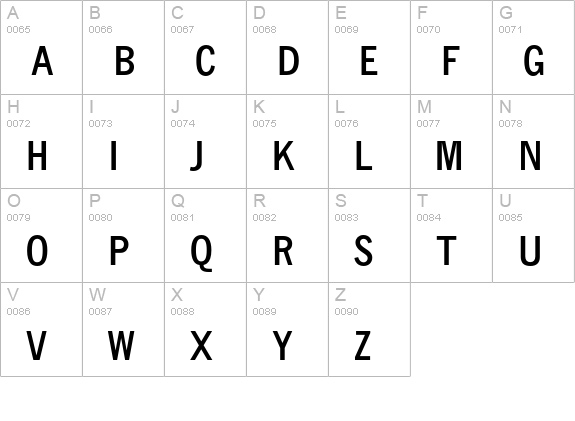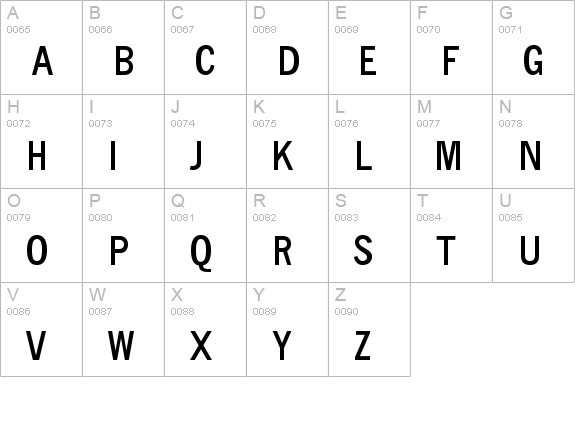
News Gothic Bold Condensed is a strong, high-contrast, condensed-width variant in the News typeface family \xE2\x80\x94 well suited to headlines, attention-grabbing titles, and strong calls-to-action.
News Gothic Bold Condensed is a versatile and modern typeface that exudes strength and boldness. With its clean lines and condensed form, this font is perfect for making a statement in headlines, titles, and other display text. Its bold weight commands attention and its condensed design allows for efficient use of space without sacrificing readability. What sets News Gothic Bold Condensed apart is that it is available for free download at FontsMarket.com. Whether you're working on a print design project, a website, or any other creative endeavor, this font is a valuable addition to your typographic arsenal. Download News Gothic Bold Condensed today and elevate your designs with its impactful and contemporary style.